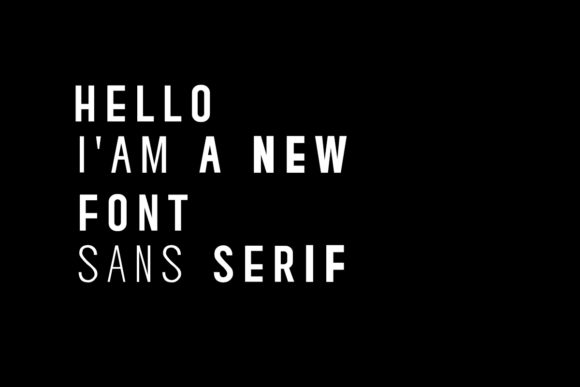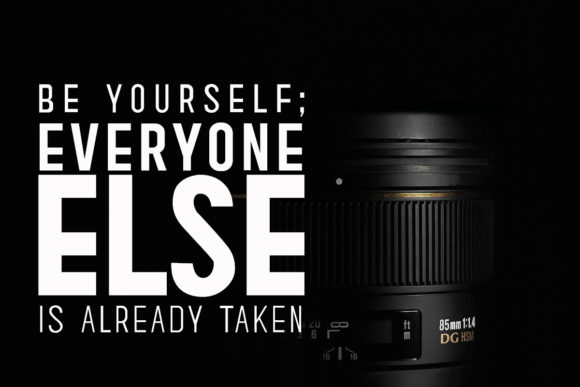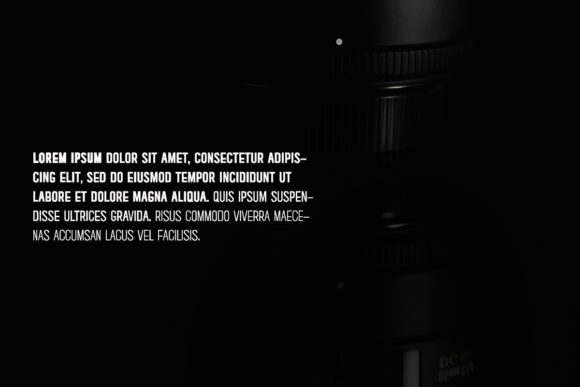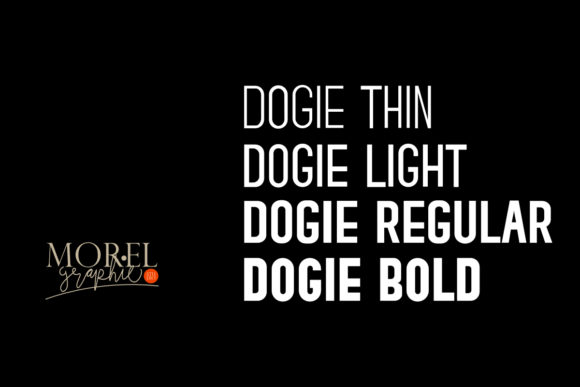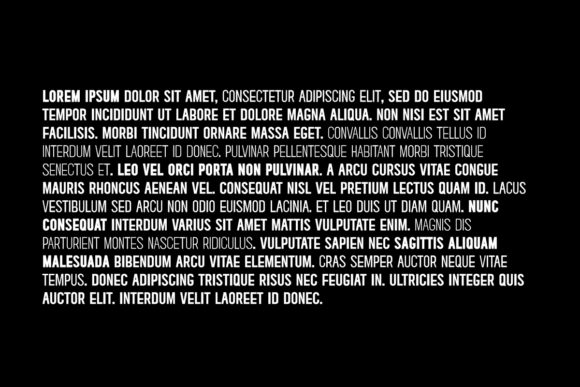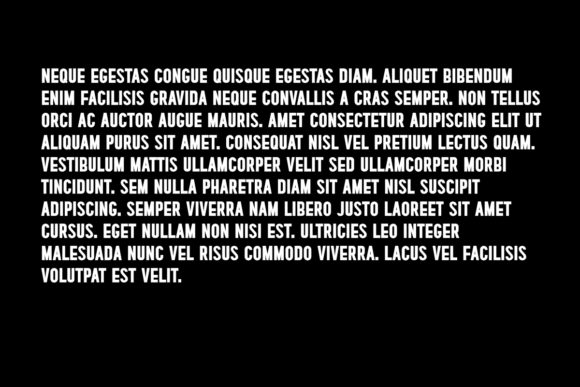
Introducing Dogie Font: The Ultimate Sans Serif for Creative Projects
Are you tired of using the same old fonts for your design projects? Look no further than Dogie Font, a minimal and neat sans serif font that’s perfect for adding a touch of modernity to your creative ideas. With its clean lines and simple aesthetic, Dogie Font is incredibly versatile and can easily be matched to a wide range of projects.
What is Dogie Font?
Dogie Font is a sans serif font that’s designed to be both elegant and understated. Its minimalist approach makes it perfect for designers and crafters who want to add a touch of sophistication to their work without overpowering it. The font’s clean lines and simple shapes make it easy to read and understand, making it perfect for use in a variety of applications, from digital media to print materials.
Key Features of Dogie Font
- Minimalist design: Dogie Font features a clean and simple design that’s perfect for adding a touch of modernity to your projects.
- Sans serif: The font’s sans serif design makes it easy to read and understand, even at small sizes.
- Highly versatile: Dogie Font can be used in a wide range of projects, from digital media to print materials.
- Easily customizable: The font is highly customizable, making it easy to adjust to suit your specific needs.
Why Use Dogie Font?
So why should you use Dogie Font for your next project? Here are just a few reasons:
- Add a touch of modernity: Dogie Font’s clean and simple design makes it perfect for adding a touch of modernity to your projects.
- Stand out from the crowd: With its unique and elegant design, Dogie Font is sure to make your projects stand out from the crowd.
- Easily readable: The font’s sans serif design and clean lines make it easy to read and understand, even at small sizes.
- Perfect for a wide range of projects: Dogie Font can be used in a wide range of projects, from digital media to print materials, making it a great addition to your font library.
Examples of Projects That Use Dogie Font
So what kinds of projects can you use Dogie Font for? Here are a few examples:
- Digital media: Use Dogie Font in your digital media projects, such as website designs, social media graphics, and email marketing campaigns.
- Print materials: The font is perfect for use in print materials, such as brochures, flyers, and business cards.
- Branding and logos: Dogie Font’s clean and simple design makes it perfect for use in branding and logo design.
- Packaging design: Use Dogie Font in your packaging design projects to add a touch of modernity and sophistication.
How to Use Dogie Font
Using Dogie Font is easy! Here are a few tips to get you started:
- Experiment with different sizes and styles: Don’t be afraid to experiment with different sizes and styles to find the perfect look for your project.
- Pair with other fonts: Dogie Font pairs well with a wide range of other fonts, so feel free to get creative and experiment with different combinations.
In conclusion, Dogie Font is a versatile and elegant sans serif font that’s perfect for adding a touch of modernity to your creative projects. With its clean lines and simple aesthetic, Dogie Font is incredibly versatile and can easily be matched to a wide range of projects. Whether you’re a designer, crafter, or simply someone who loves working on creative projects, Dogie Font is a great addition to your font library.